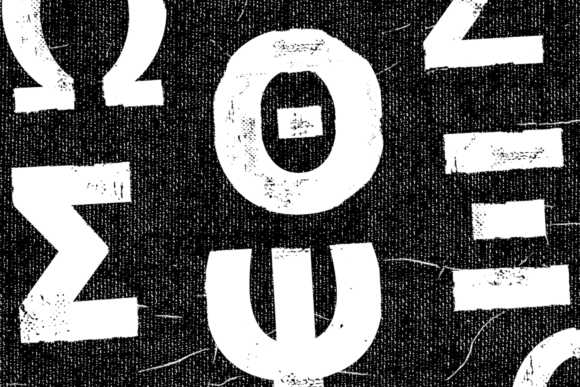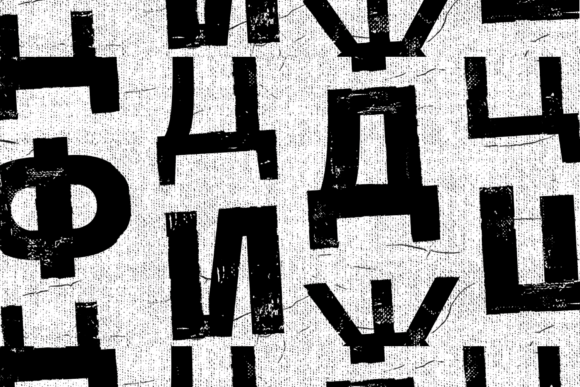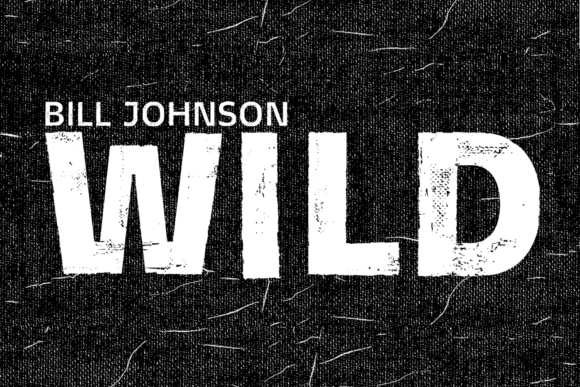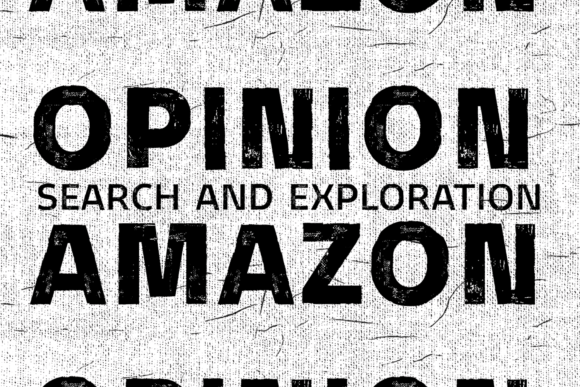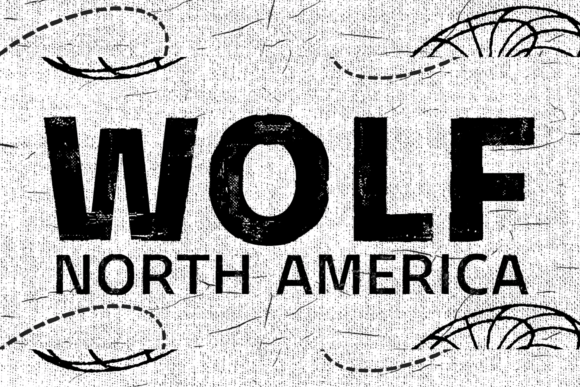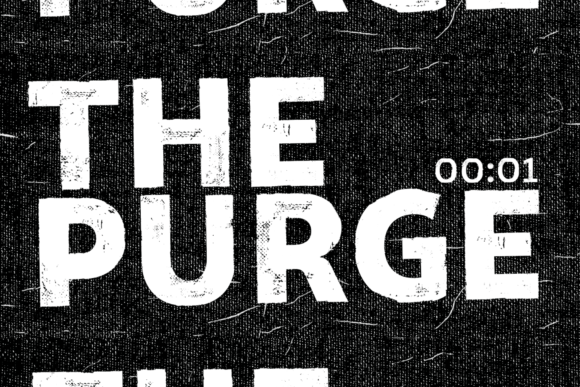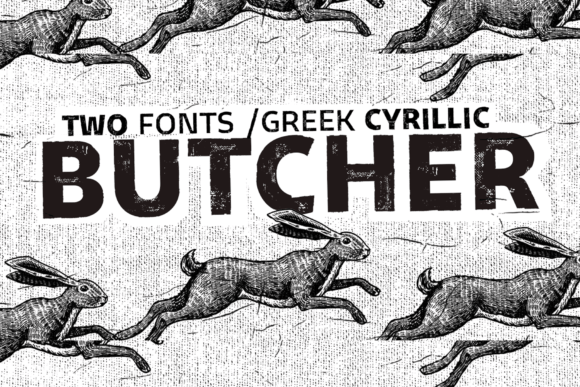
Introducing Butcher Font: The Ultimate Retro-Style Display Font for Your Creative Projects
Are you on the hunt for a font that adds a touch of nostalgia and coolness to your designs? Look no further than the Butcher Font! This retro-style display font is making waves in the design community, and for good reason. Its unique blend of vintage charm and modern versatility makes it an excellent addition to any creative project. In this article, we’ll dive into the world of Butcher Font, exploring its features, applications, and why it’s a must-have for designers and crafters alike.
The Story Behind Butcher Font
Butcher Font is a carefully crafted typeface that pays homage to the classic display fonts of the past. Its design is inspired by the nostalgia of retro advertising, posters, and signage. The font’s creator aimed to capture the essence of a bygone era, infusing it with a modern twist that makes it suitable for a wide range of applications. The result is a font that exudes a sense of fun, playfulness, and sophistication.
Key Features of Butcher Font
So, what makes Butcher Font so special? Here are some of its key features:
- Retro-style design: Butcher Font boasts a unique, vintage-inspired design that’s sure to grab attention.
- Display font: This font is specifically designed for display purposes, making it perfect for headlines, titles, and short text passages.
- Versatile: Butcher Font can be used in a wide range of applications, from branding and advertising to packaging and signage.
- Easy to read: Despite its ornate design, Butcher Font remains highly legible, even at smaller sizes.
Applications of Butcher Font
Butcher Font’s versatility is one of its greatest strengths. Here are some of the many ways you can use this font in your creative projects:
- Branding and logo design: Add a touch of nostalgia to your brand identity with Butcher Font.
- Advertising and marketing: Use Butcher Font to create eye-catching ads, posters, and social media graphics.
- Packaging design: Give your product packaging a retro makeover with Butcher Font.
- Signage and wayfinding: Butcher Font is perfect for creating visually appealing signs and wayfinding systems.
- Digital design: Use Butcher Font in your digital projects, such as website headers, email newsletters, and social media graphics.
Tips for Using Butcher Font
To get the most out of Butcher Font, here are some tips to keep in mind:
- Use it sparingly: Butcher Font is a display font, so use it sparingly to avoid overwhelming your design.
- Experiment with colors: Butcher Font looks great in a variety of colors, so don’t be afraid to experiment and find the perfect hue for your design.
- Pair it with other fonts: Butcher Font works well with a range of other fonts, so try pairing it with a sans-serif font for added contrast.
In conclusion, Butcher Font is a cool, retro-style display font that’s perfect for adding a touch of nostalgia to your designs. Its versatility, legibility, and unique design make it an excellent choice for a wide range of applications. Whether you’re a designer, crafter, or simply a creative enthusiast, Butcher Font is sure to become a favorite in your toolkit. So why wait? Add Butcher Font to your projects today and experience the magic for yourself!
Butcher is a cool, retro-style display font. Its versatility makes it suitable for a wide spectrum of applications, so add it confidently to your projects and you will love the results!